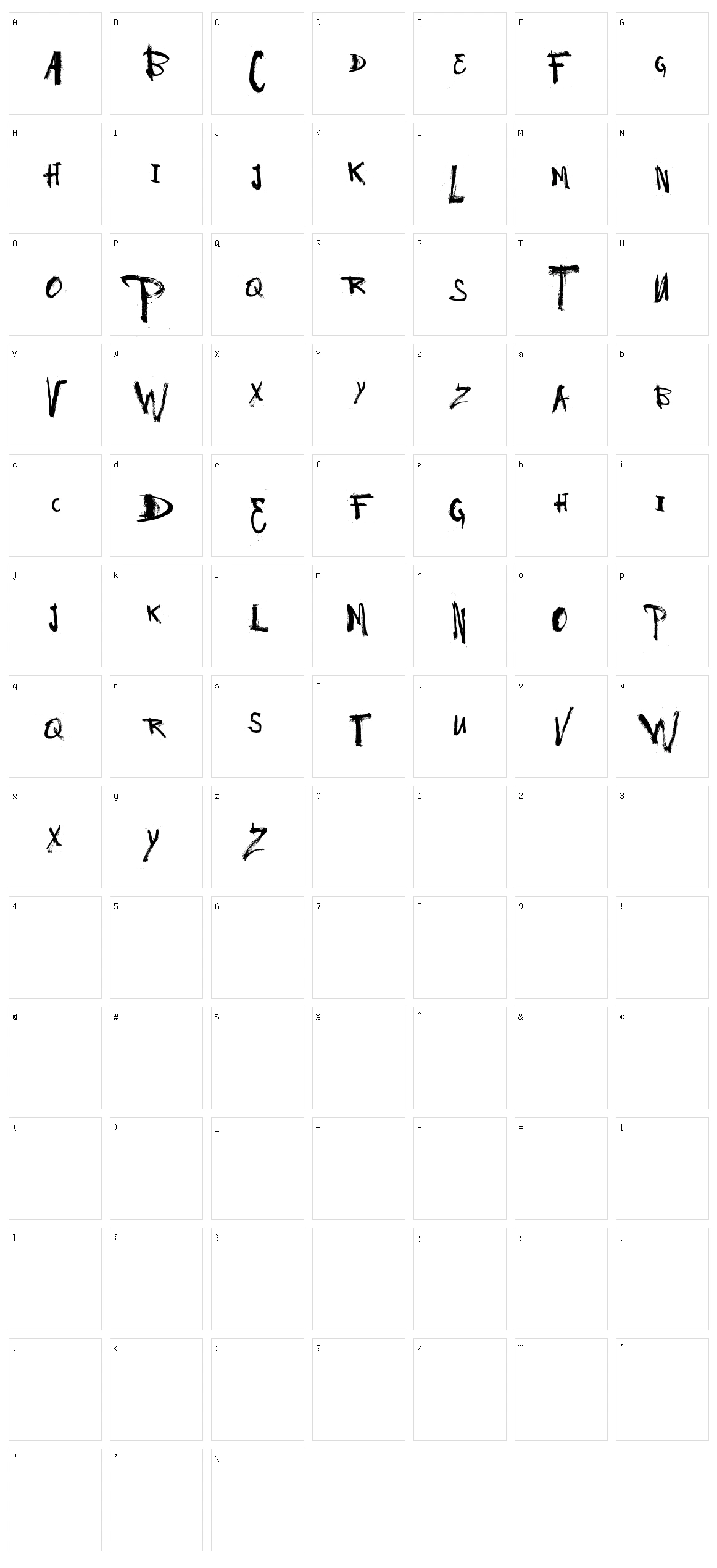
The free font Vtks Have a Nice Day is carefully designed by Douglas Vitkauskas, showcasing a thoughtful balance of creativity and usability and falls under the Trash font style. When you download the ZIP file, it contains only 125.17 KB of font files, making it lightweight and quick to download. Please review the license details below to understand permitted usage and distribution rights. If license information is not available, we recommend using this font for personal projects only or contacting the author directly for commercial usage permissions.